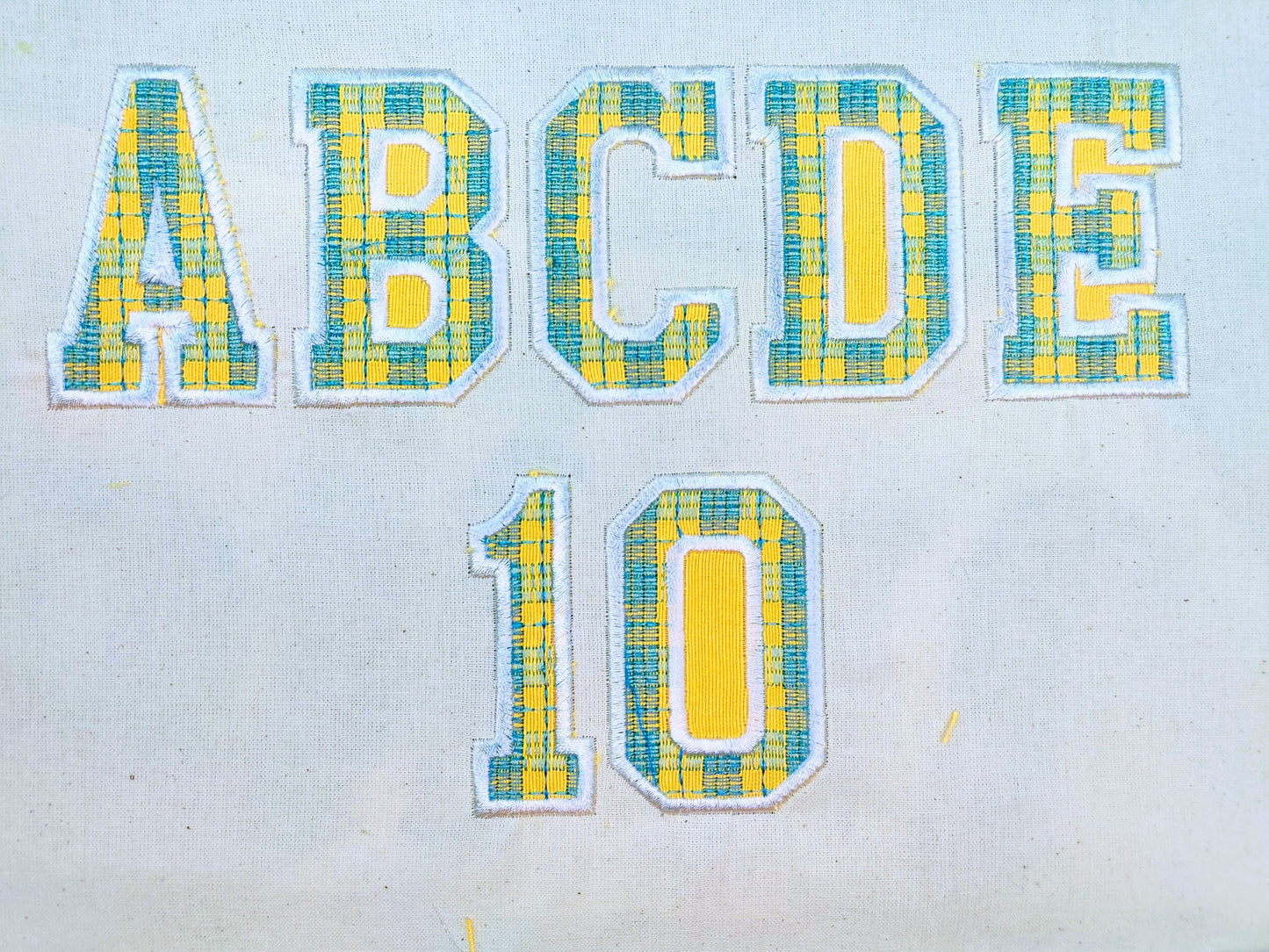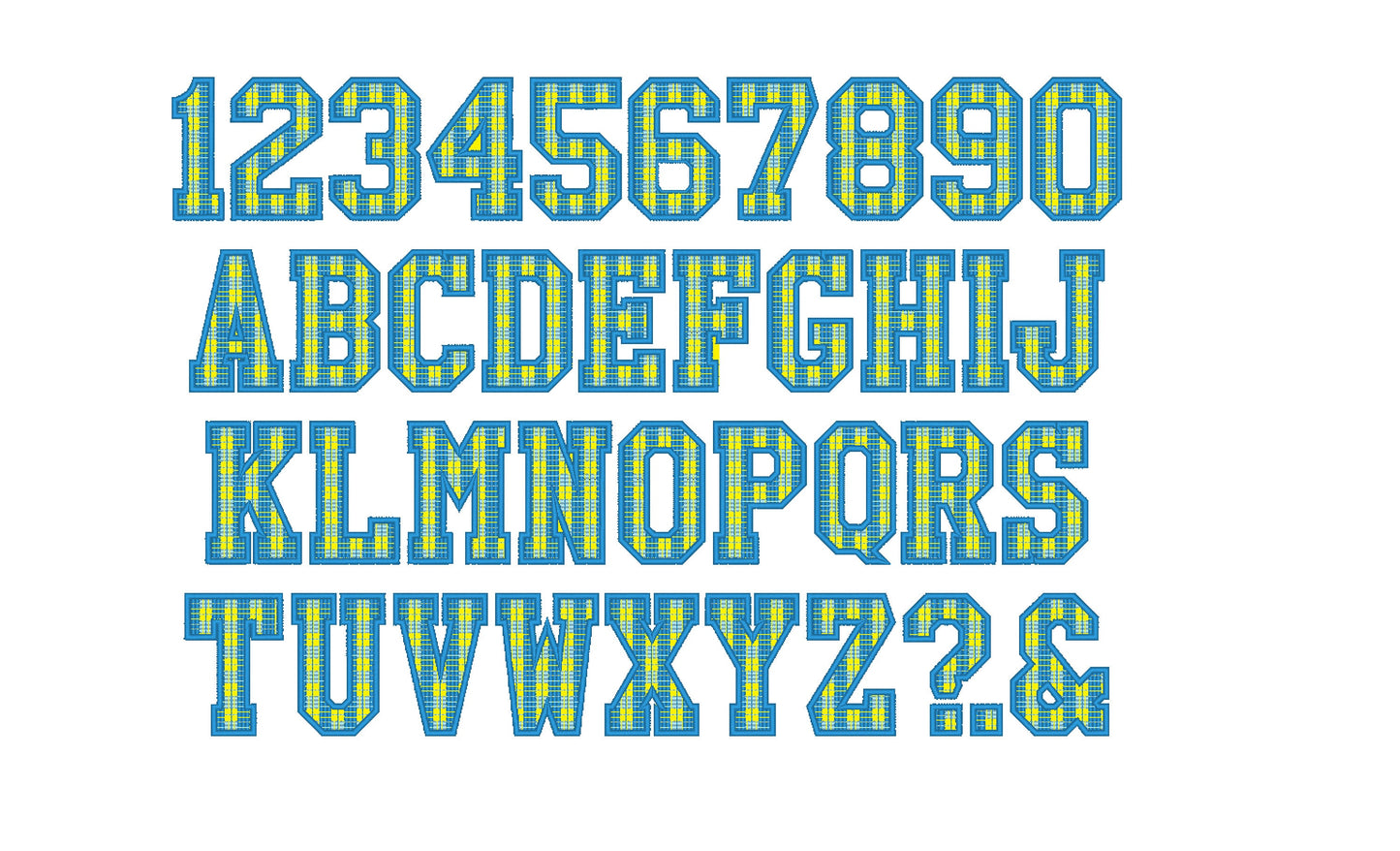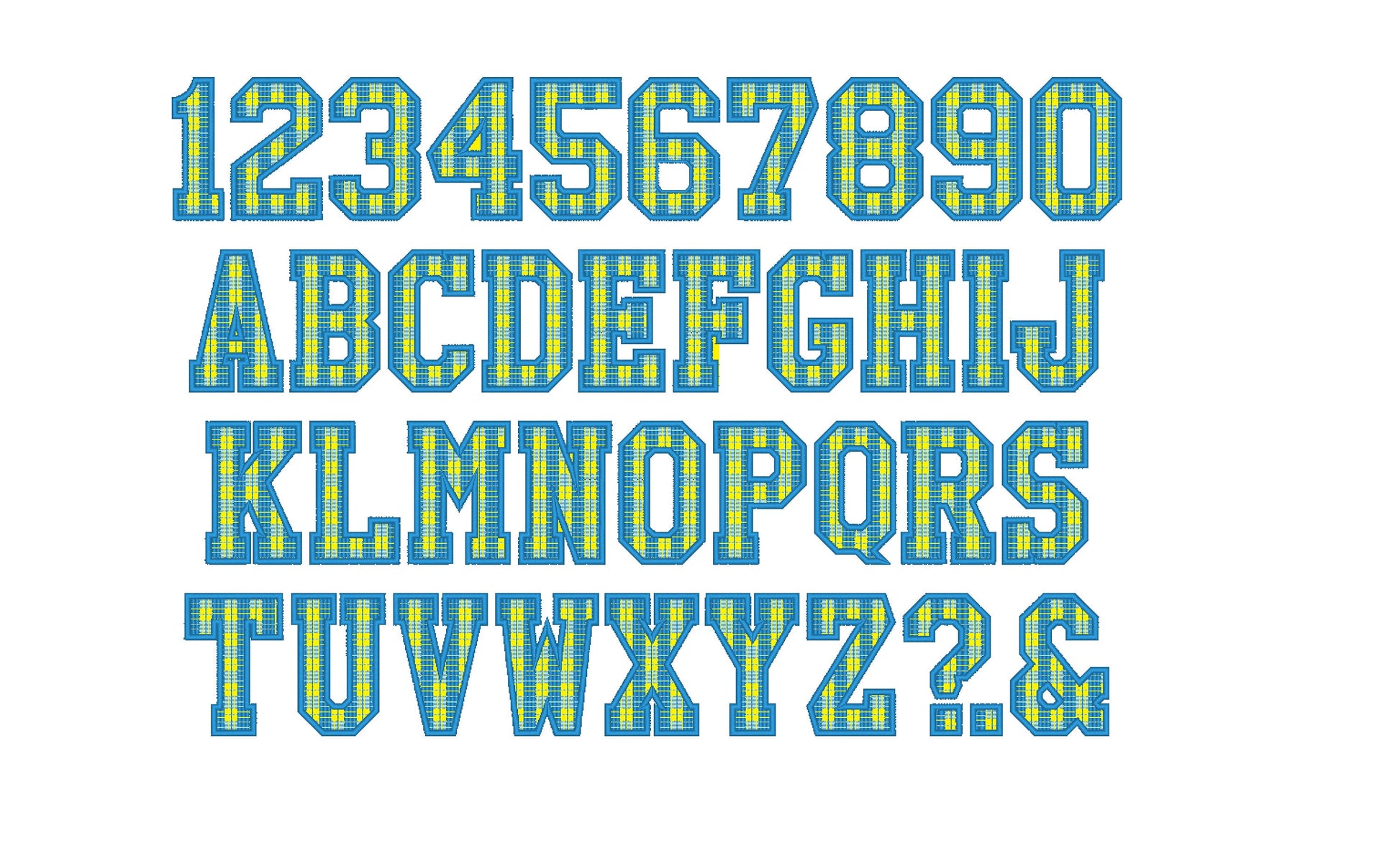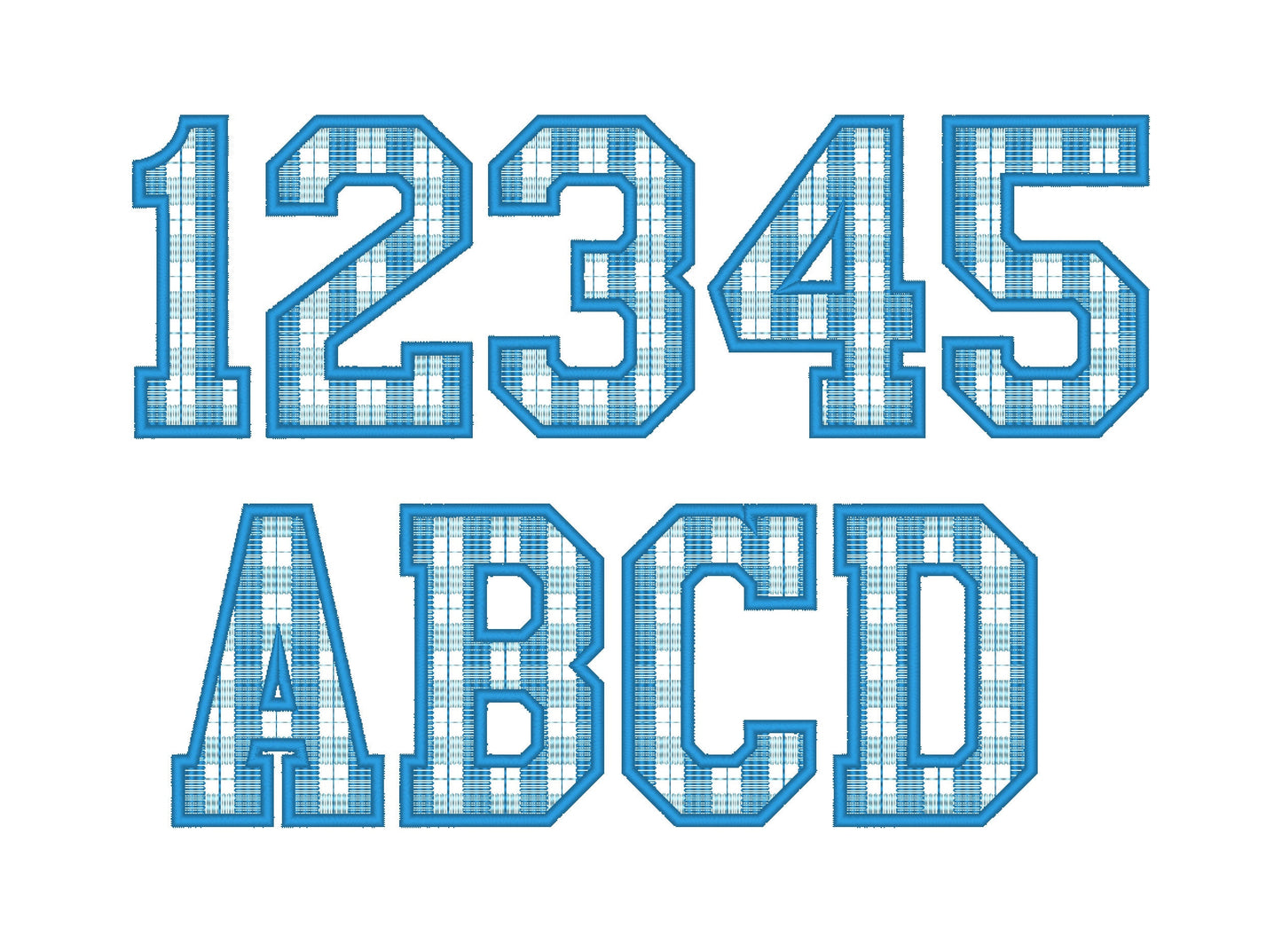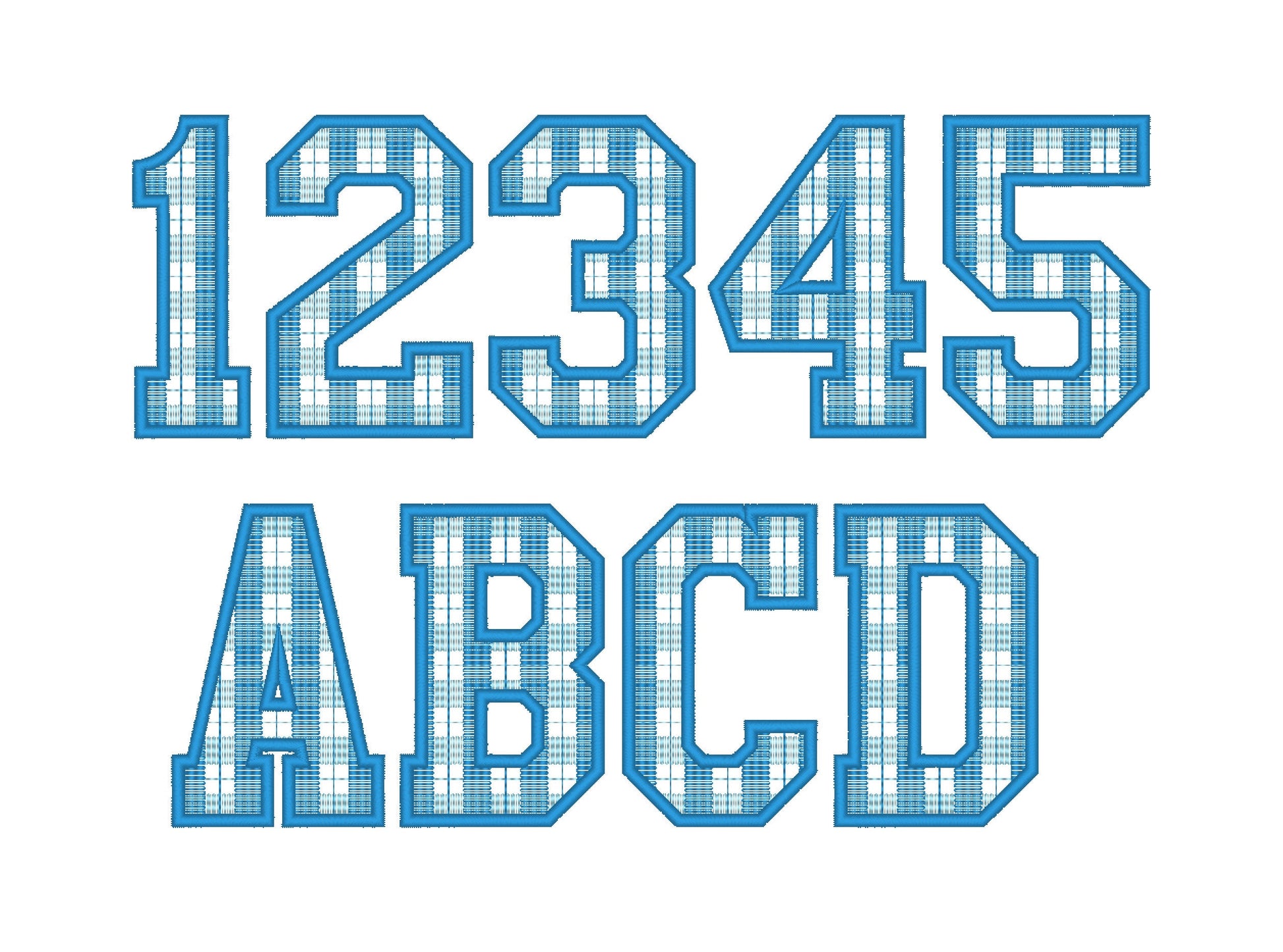
Or click to open the linkA varsity sport applique font with a buffalo plaid pattern stitched in. Great for Christmas and fall shirts, pillows, stockings and bags.
Uppercase letters A to Z, numbers 0 to 9, plus ampersand, period and question mark. Seven sizes: 2, 3, 3.5, 4, 5, 6 and 7 inches. The plaid is part of the embroidery, stitched over the applique.